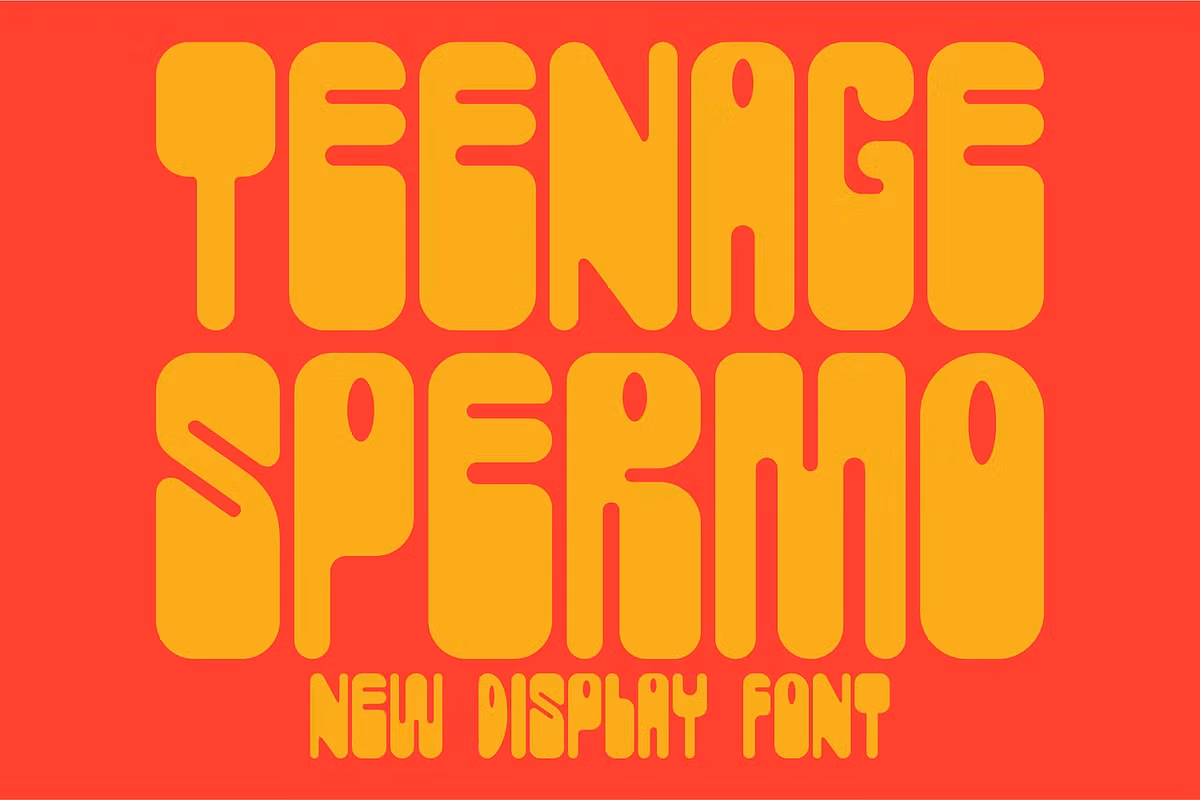
Teenage Spermo Free Download
TF Spermo Font Free Download
This contemporary font is perfect for modern branding projects, tech startup identities, digital media campaigns, creative agency materials, innovative product packaging, futuristic design concepts, experimental typography layouts, and cutting-edge advertising applications. Its distinctive character makes it ideal for projects requiring forward-thinking aesthetics and contemporary visual impact.
TF Spermo Font is exciting because it features unique letterform construction with organic curves and fluid connections that create dynamic visual rhythm and modern appeal. The font combines geometric precision with natural flowing elements, resulting in a typeface that feels both structured and spontaneous. Its innovative design approach ensures memorable brand recognition while maintaining professional functionality across diverse applications.
The TF Spermo Font family typically includes multiple weights and stylistic variations, along with alternate characters and special glyphs that enhance creative flexibility. Many versions feature extended language support and OpenType features that optimize performance across digital and print media platforms.
Whether you're developing innovative brand identities, experimental design projects, or contemporary marketing campaigns, TF Spermo Font Free Download provides creative distinction with professional reliability. This typeface transforms standard text into dynamic visual statements that capture attention and convey innovation. Its versatile character works effectively for both headline applications and supporting text, making it a valuable resource for designers who need fonts that balance creative uniqueness with practical functionality in today's competitive design landscape.